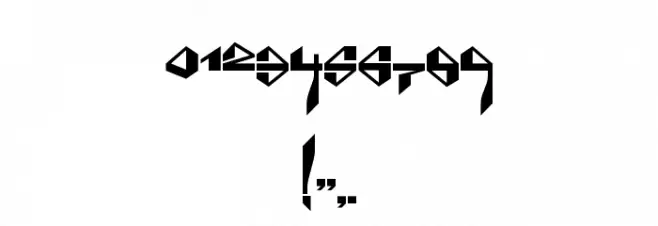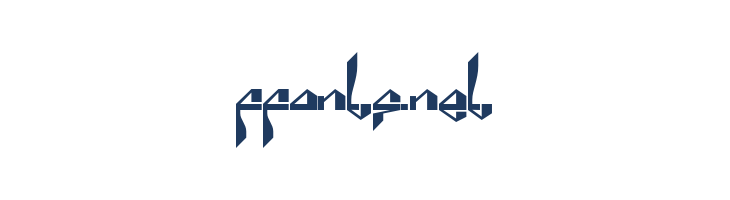
Suberp Black Font
Suberp Black Description
This font features a bold, geometric design with sharp angles and a futuristic aesthetic. The characters are constructed with a series of straight lines and pointed edges, giving it a distinct, edgy appearance. The uppercase and lowercase letters share a consistent style, maintaining the angular theme throughout. Numbers and special characters are equally stylized, ensuring a cohesive look across all glyphs. The font's unique structure makes it stand out, ideal for projects that require a modern and unconventional typeface.
A bold, geometric font with sharp angles and a futuristic style from Uncategorized fonts.
- Proposed Projects: Ideal for sci-fi themed designs, modern branding, edgy posters, and digital artwork.
- Overall Style: Futuristic, Edgy